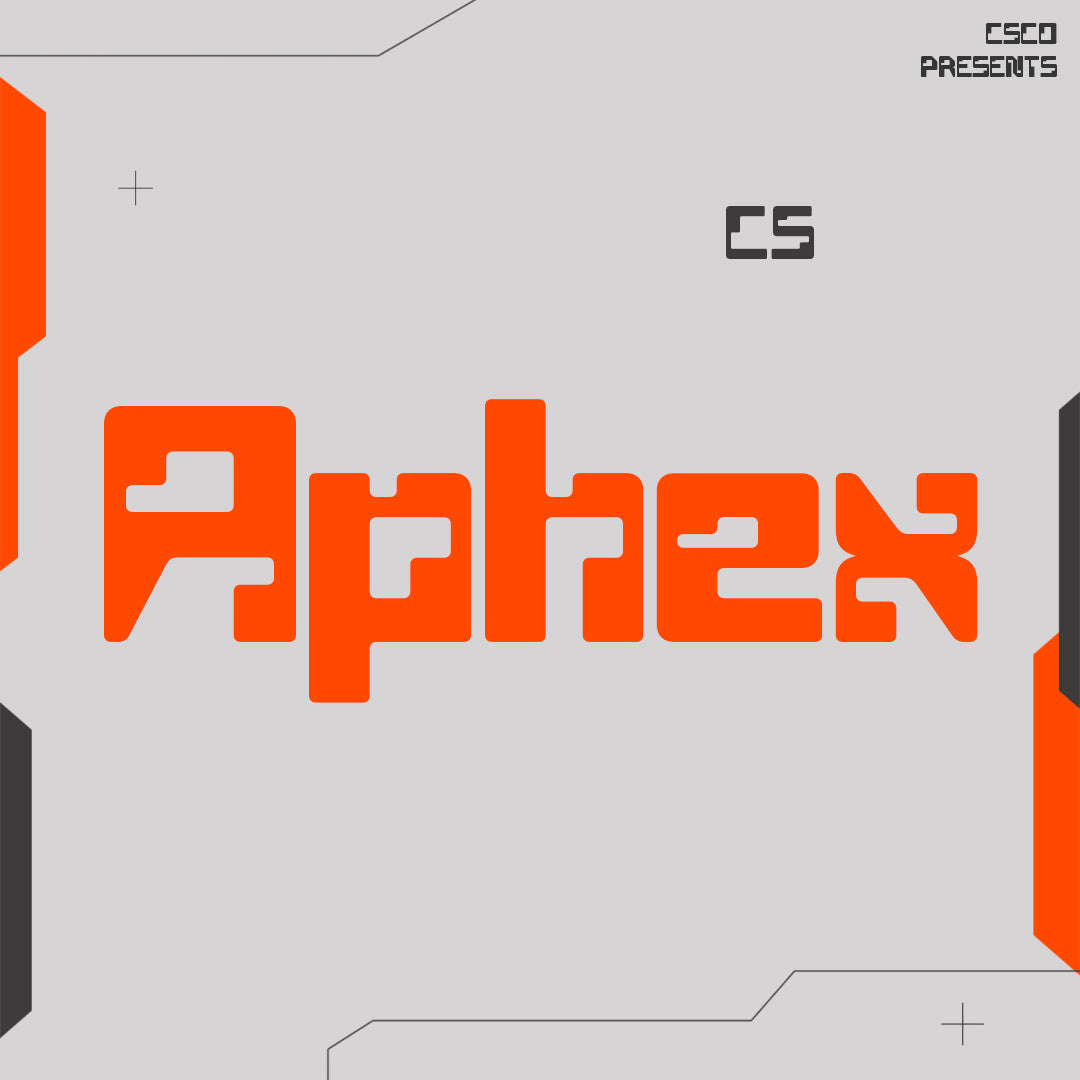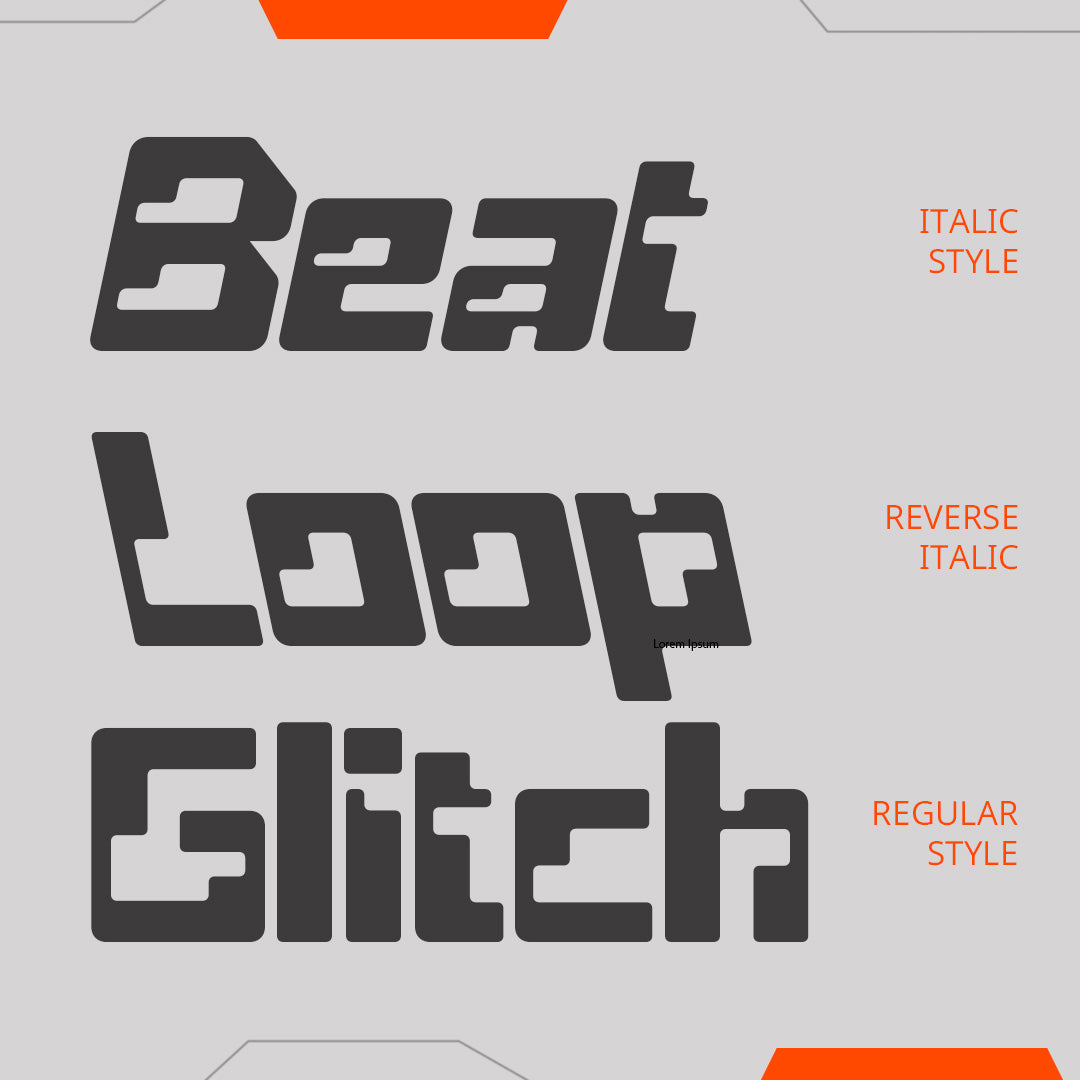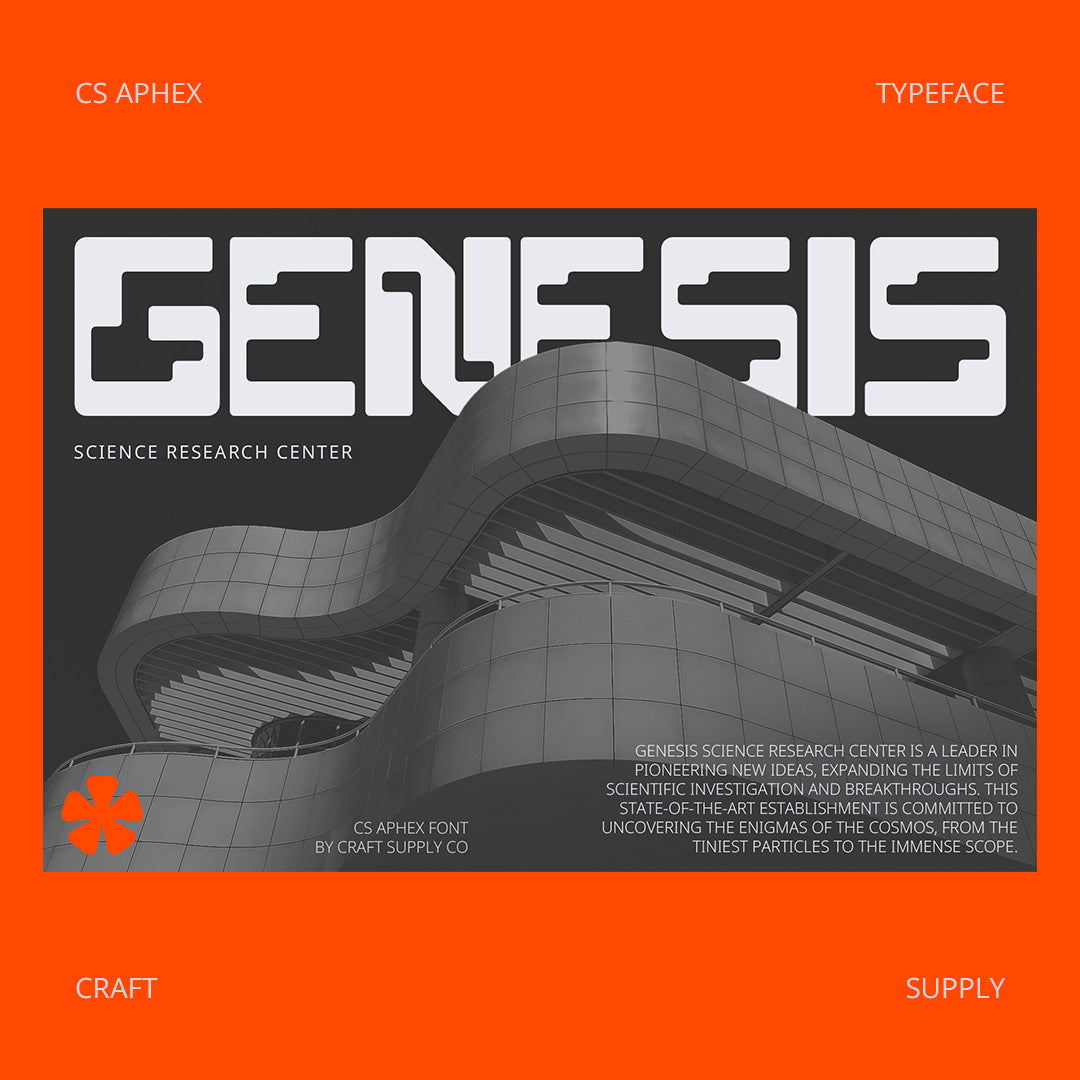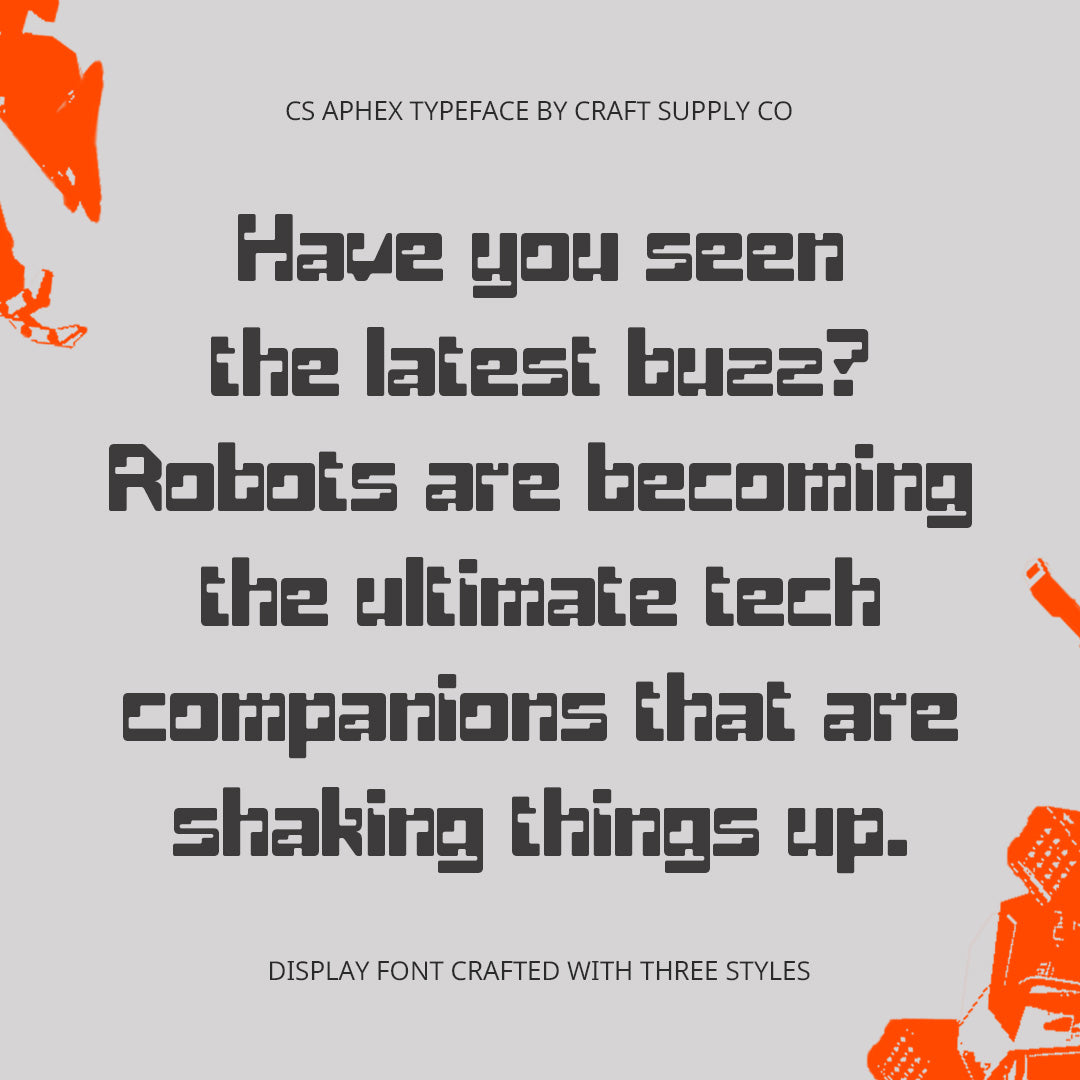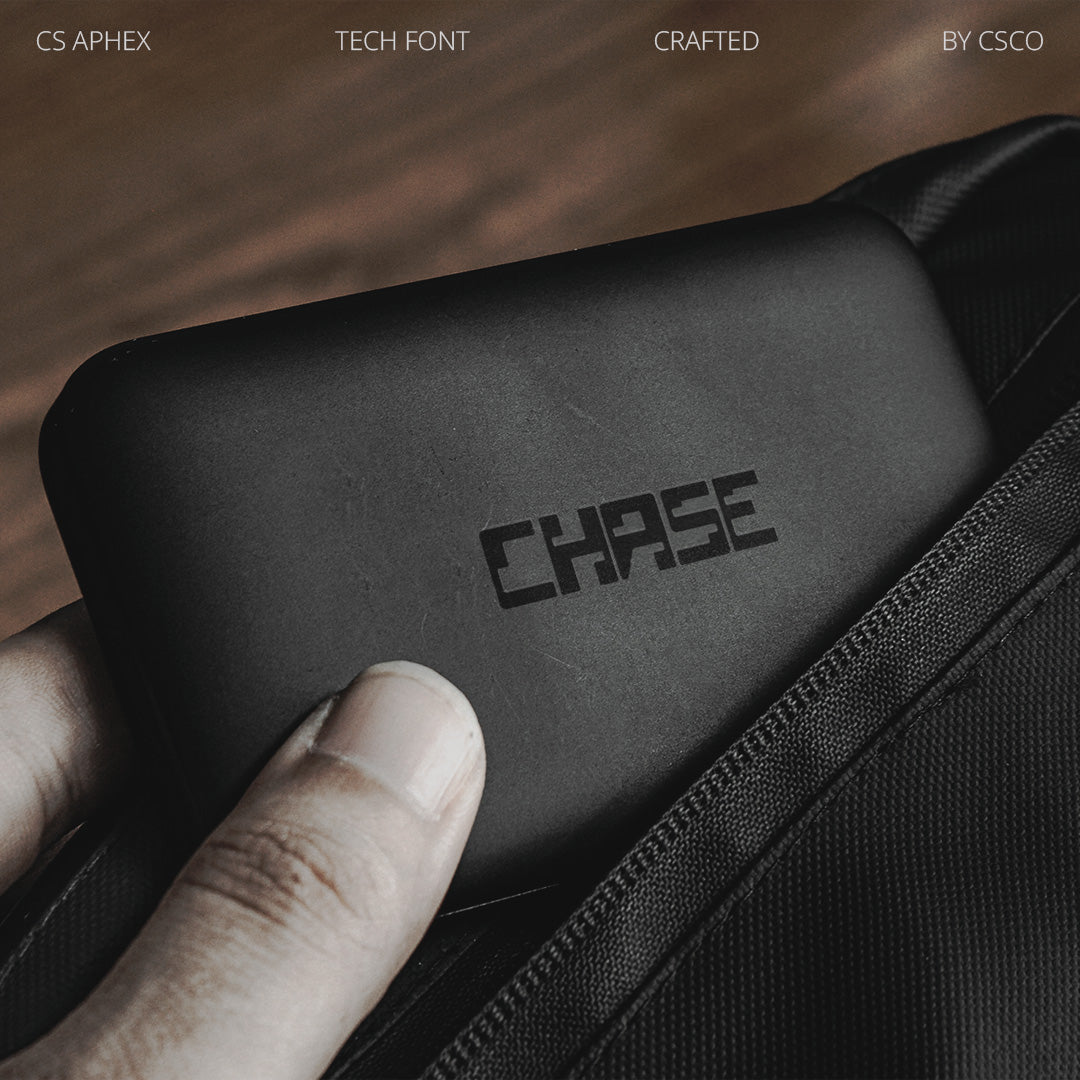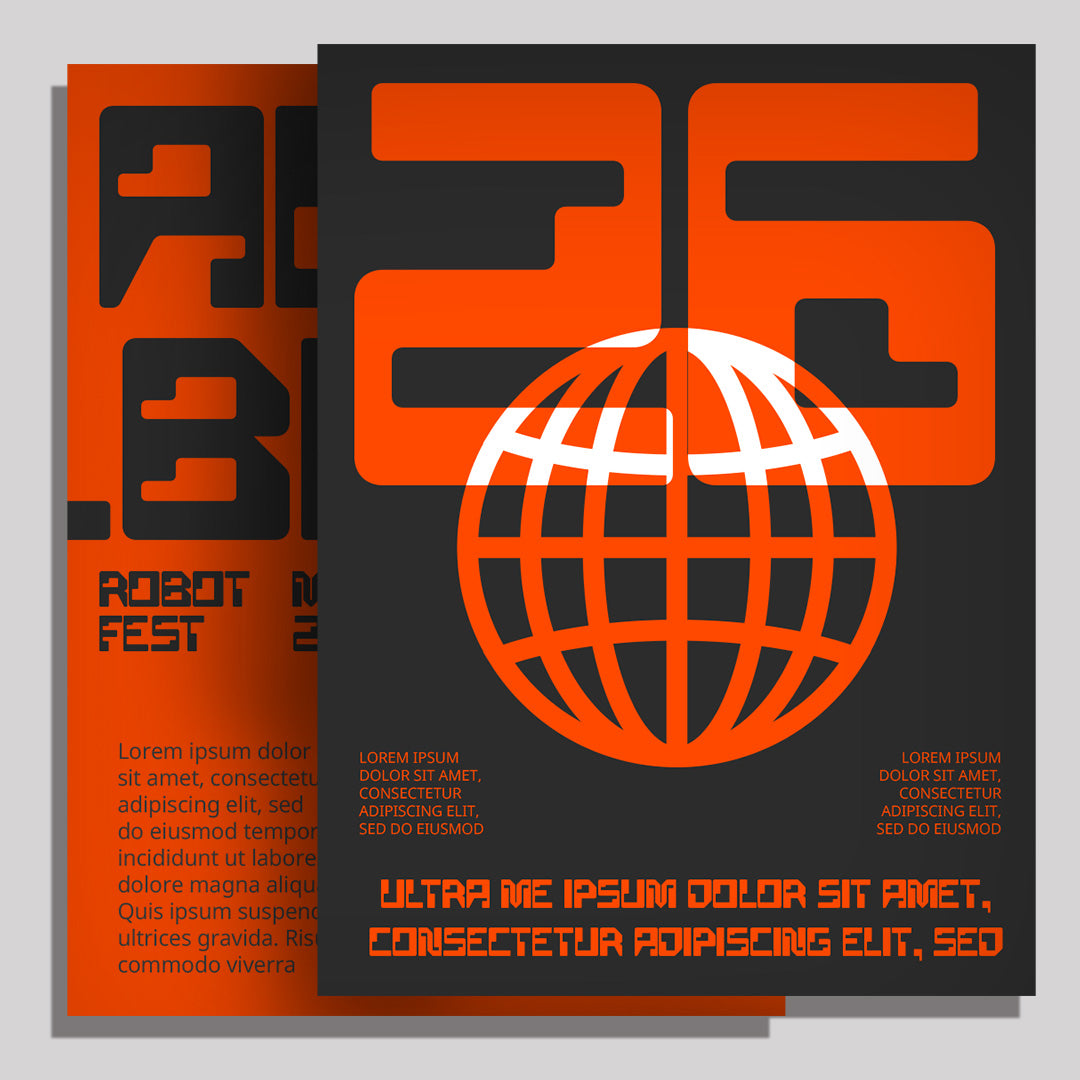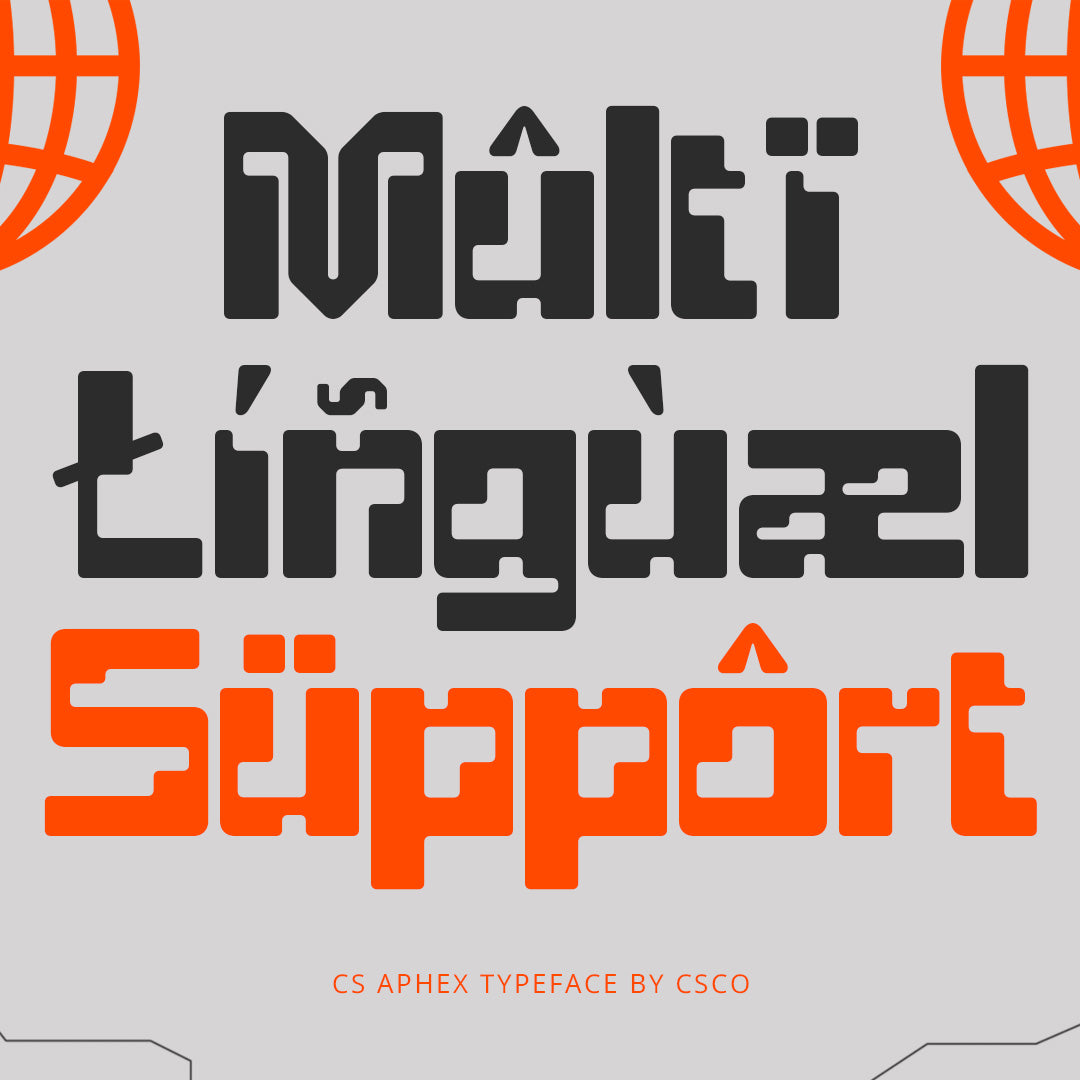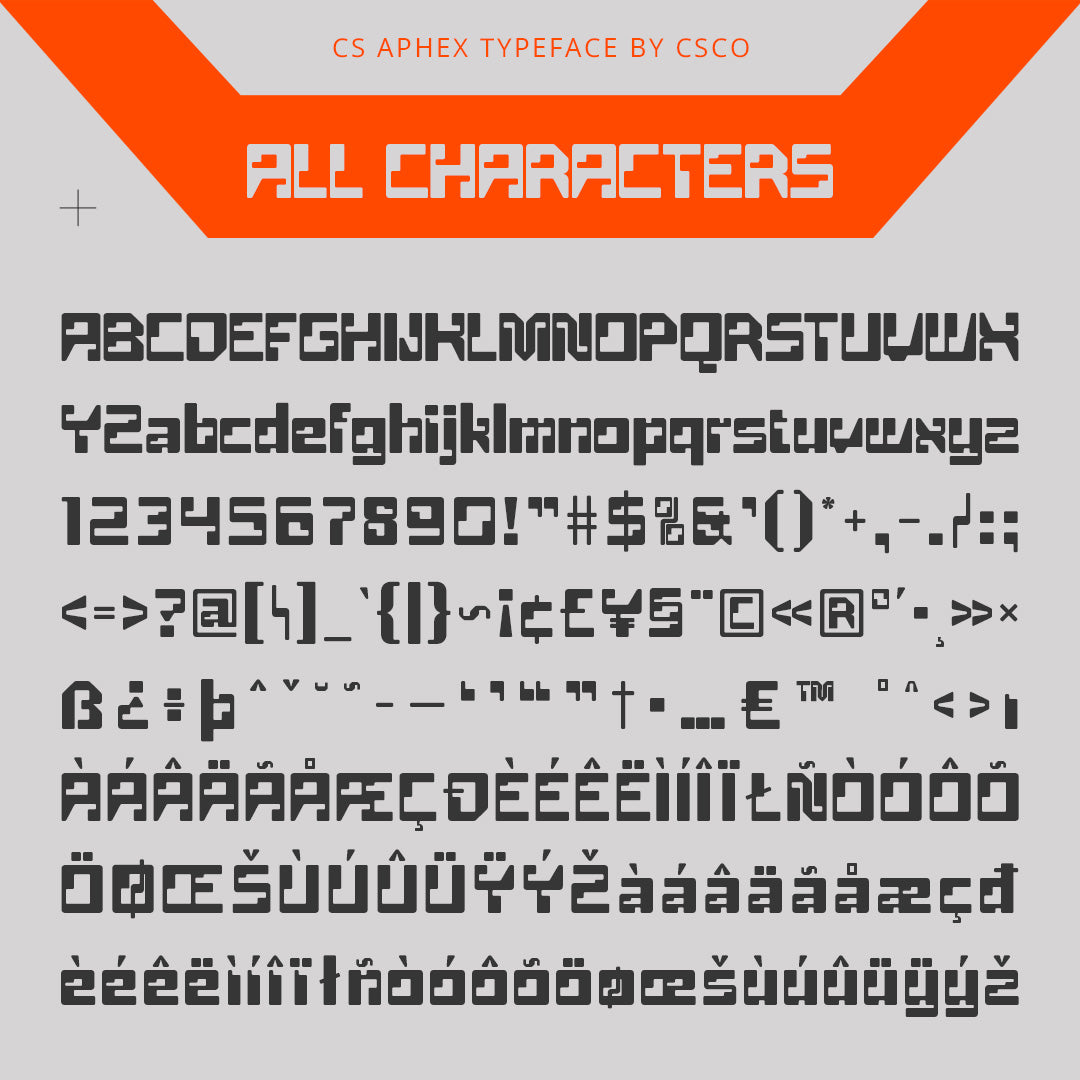
CS Aphex – Tech Font
CS Aphex Font: Tech Display Font
Futuristic and Innovative Design
CS Aphex is a modern display font that embodies a tech-inspired aesthetic with sleek, geometric forms and sharp lines. Its design captures a sense of futurism and innovation, making it ideal for projects that demand a cutting-edge and forward-thinking appearance.
High-Tech Aesthetic
With its emphasis on clean, precise shapes, CS Aphex exudes a high-tech vibe, perfect for futuristic branding and digital applications. The font’s sophisticated lines and modern style ensure that it stands out in any design, conveying both creativity and technological advancement.
Perfect for Digital and Branding Applications
Whether used for futuristic branding, tech-focused promotional materials, or digital interfaces, CS Aphex brings a dynamic, modern edge to your projects. Its innovative design ensures a distinctive look that resonates with a sense of progress and innovation.
Elevate Your Design with Cutting-Edge Style
CS Aphex is the go-to choice for designs aiming to highlight a modern, technological feel. Its sharp lines and geometric elegance make it an excellent fit for any project that requires a sleek, high-tech appearance, enhancing your brand’s forward-looking image.
1. CS Aphex Regular
2. CS Aphex Italic
3. CS Aphex Reverse Italic
1. Uppercase and lowercase characters
3. Accents (Supports Multilingual Characters)
CS Aphex is a geometric display font featuring Regular, Italic, and Reverse Italic styles. It includes uppercase and lowercase characters, numerals, punctuation, multilingual accent support, and PUA encoding.